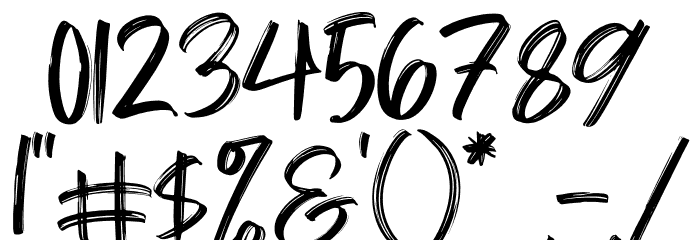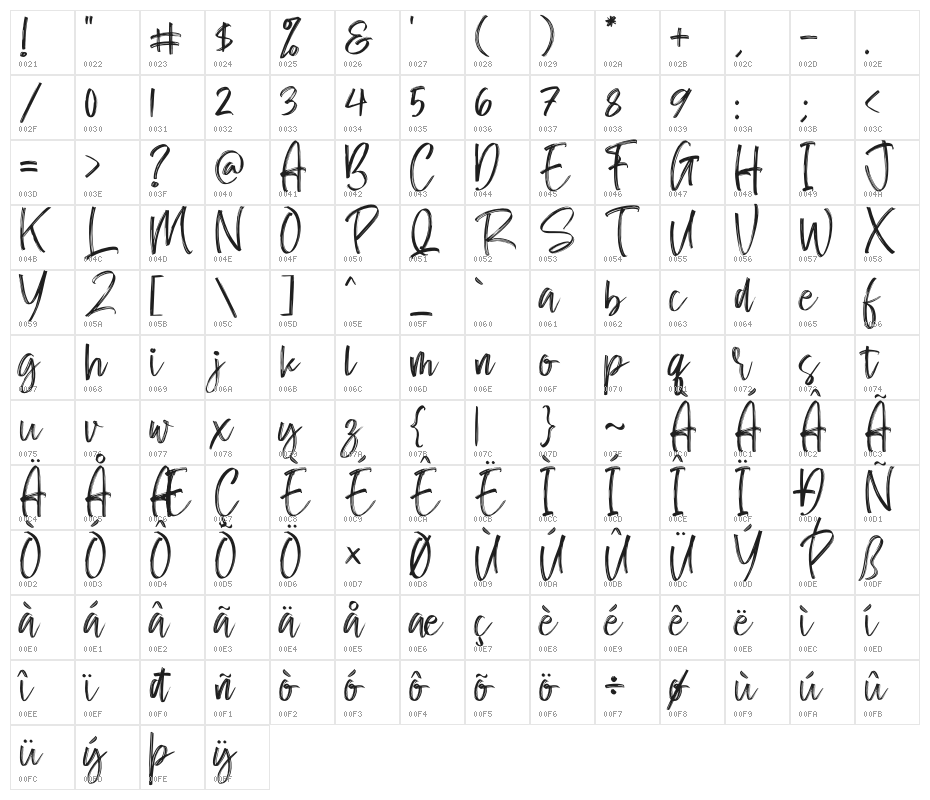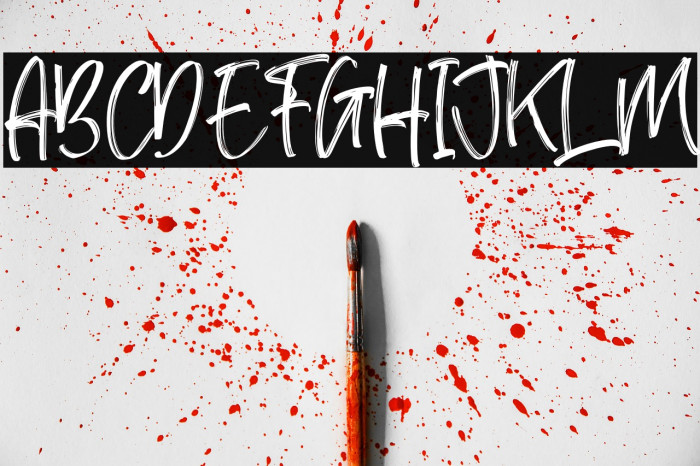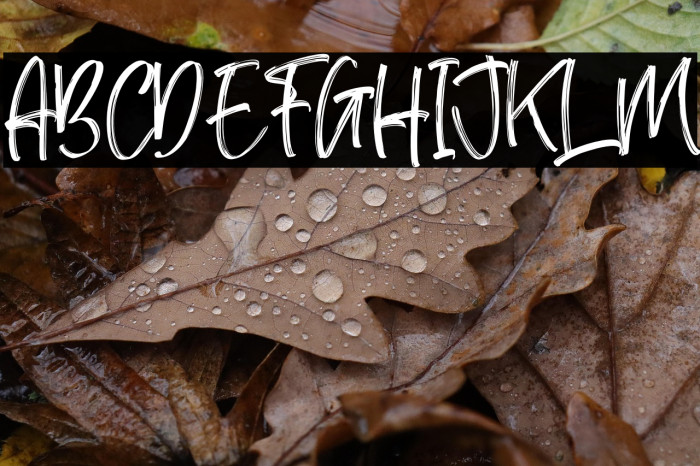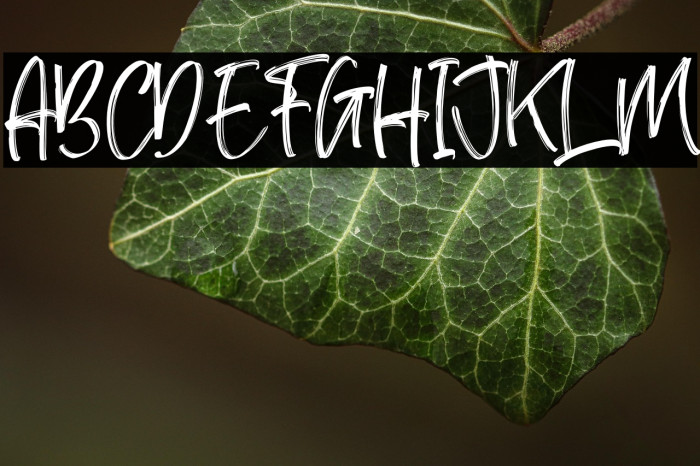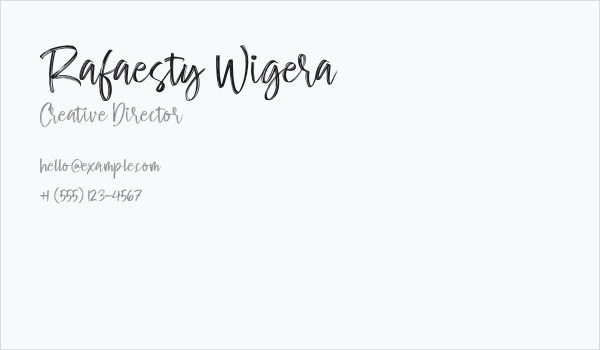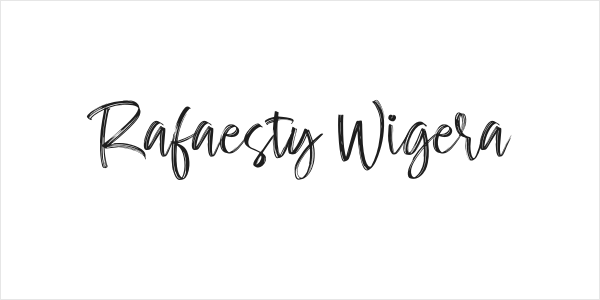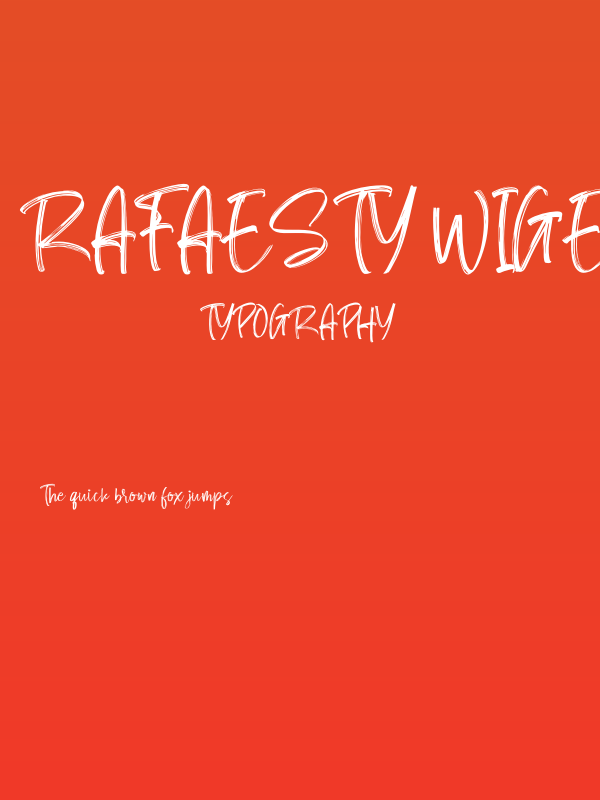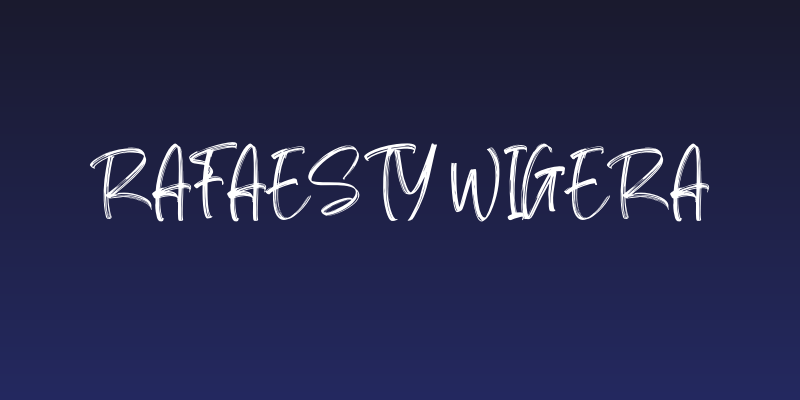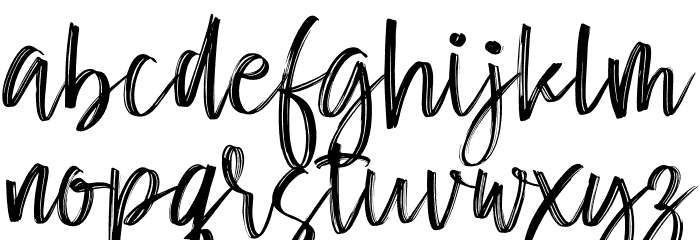
Rafaesty Wigera Font
Rafaesty Wigera Description
This font features a dynamic and expressive handwritten style, characterized by its bold and fluid strokes. The uppercase letters exhibit a sense of movement with their slightly slanted and elongated forms, while the lowercase letters maintain a consistent flow, enhancing the overall cohesiveness. The numerals are equally expressive, maintaining the same energetic style. Special characters are crafted with the same attention to detail, ensuring they blend seamlessly with the rest of the font. The brush-like texture adds a personal touch, making it ideal for projects that require a human element.
| Proposed Projects | Ideal for branding, social media graphics, invitations, and any project that requires a personal, artistic touch. |